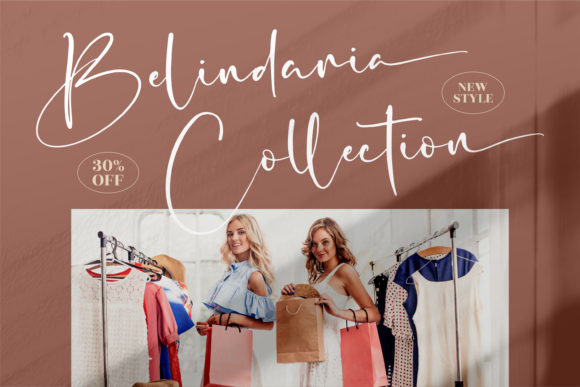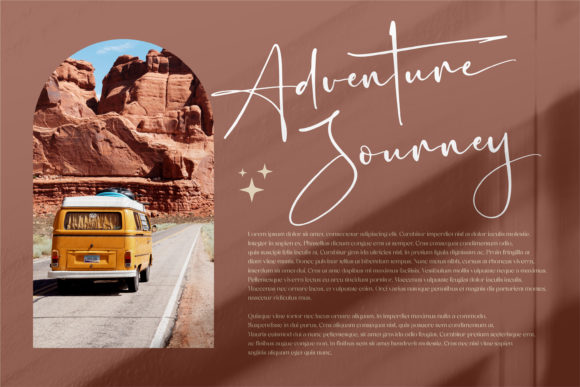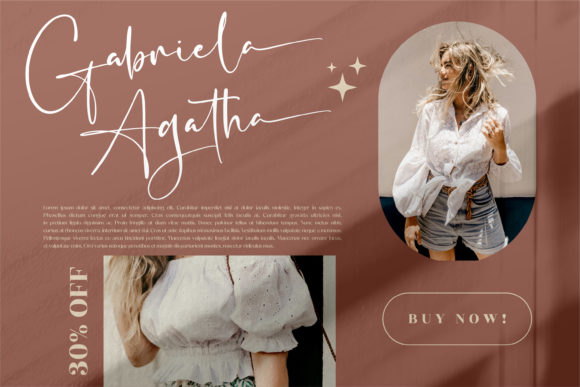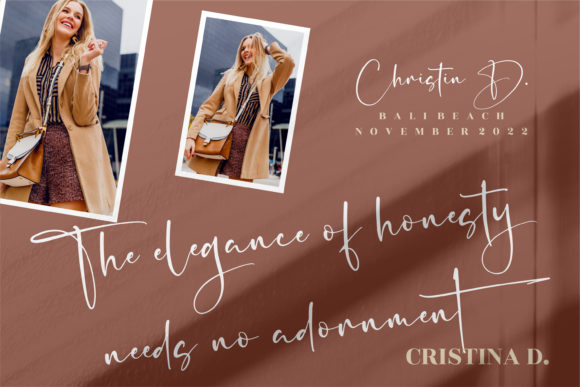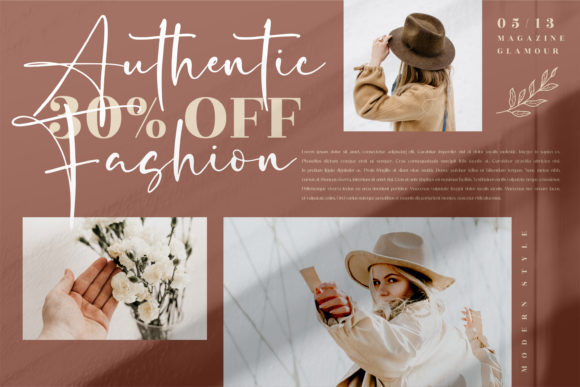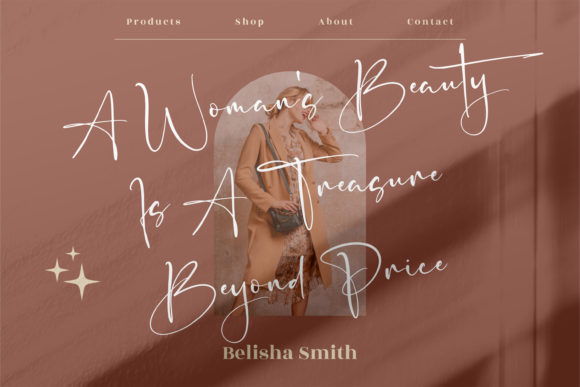
Introduction to Senorita Signature Font
Senorita Signature is a beautiful and refined script font.
It has a classy, elegant and modern look that can be used for logos, branding, invitations, stationery, wedding designs, social media posts, and much more Senorita Signature is PUA encoded which means you can access all of the glyphs and swashes with ease.
Key Features of Senorita Signature Font
Why Choose Senorita Signature Font?
Senorita Signature Font offers exceptional quality and versatility, making it a valuable addition to your design toolkit. Whether you’re creating for personal projects or commercial use, Senorita Signature Font delivers professional results.